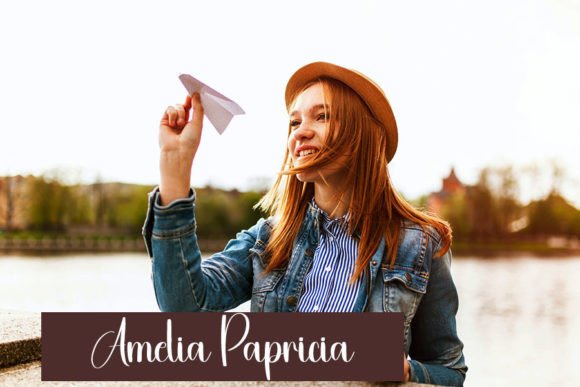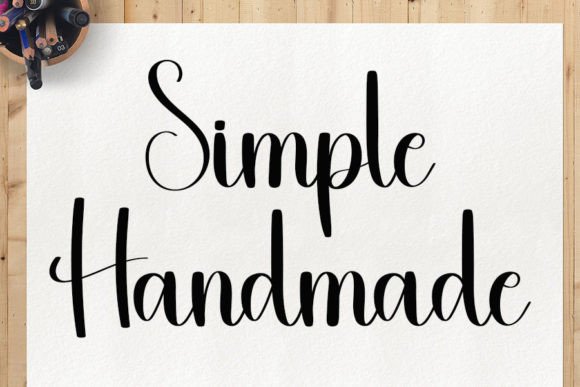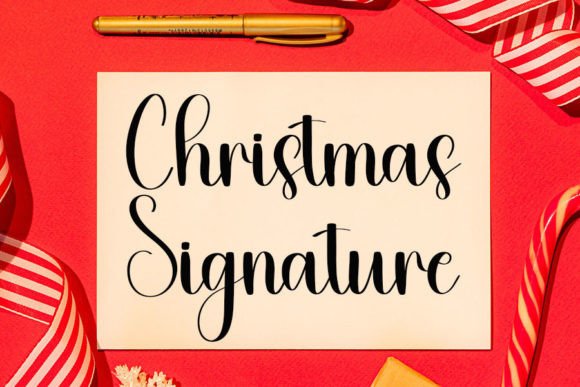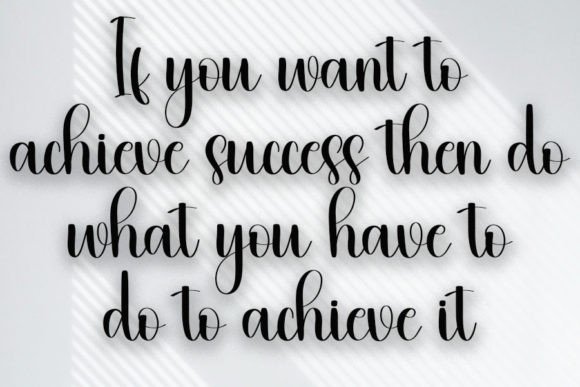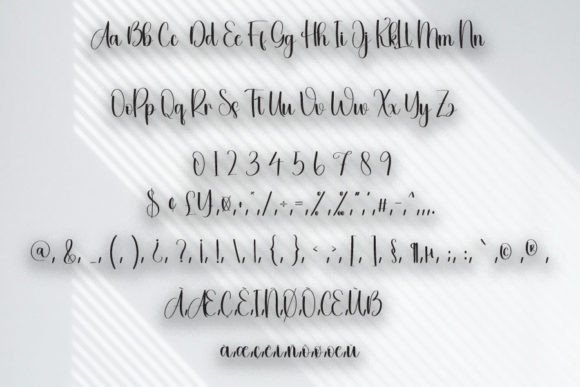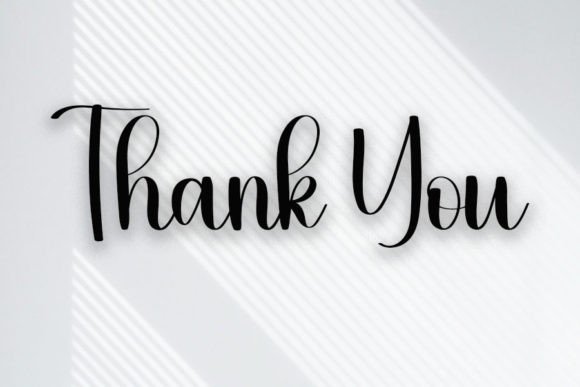
Introduction to Olrihgt Font
Remember that moment when you’re brainstorming ideas for your next creative project, and you’re stuck trying to find the perfect font to bring it all together? You’ve got your design vision, but the right typography is missing to make it pop. For many of us, this is a common struggle – but what if you had a reliable go-to font that could elevate any design, no matter the occasion?
Enter the Olrihgt Font, a simple and friendly handwritten font that’s perfect for crafts, digital design, presentations, or making greeting cards. With its high-quality design and transparent background, this font is a valuable resource for designers looking to add a personal touch to their projects. Whether you’re a seasoned pro or just starting out, Olrihgt Font is a must-have in your design arsenal.
Key Features of Olrihgt Font
- Designed to be versatile, the Olrihgt Font is perfect for use in a range of creative projects, from logos and branding to typography and graphics.
Honest Review: Olrihgt Font
As a designer, I’m always on the lookout for high-quality design resources to elevate my creative projects. The Olrihgt Font caught my eye with its unique and modern aesthetic.
What works well: ✨ The font is incredibly versatile and works well for a variety of design projects, from logos to signage. The font’s clean lines and simple shapes make it easy to read and understand, even at small sizes.
- ✨ The font has a transparent background, making it easy to place on any background without worrying about clutter.
However, there are a few limitations to consider: ⚠️ The font is only available in a few weights, which may limit its use in certain design projects. Additionally, the font may not be as customizable as some other options.
Overall, I’m impressed with the Olrihgt Font and would recommend it to designers looking for a high-quality, modern font for their creative projects. While it may have a few limitations, its versatility and ease of use make it a valuable addition to any design resource library.
Tips for Getting the Most Out of Olrihgt Font
Use the Olrihgt Font with a transparent background to create a unique and eye-catching design. Experiment with different font sizes and colors to achieve the desired effect. Combine the Olrihgt Font with other design elements, such as images and graphics, to create a visually appealing creative project.
The Olrihgt Font is suitable for a wide range of creative projects, including logos, business cards, and marketing materials. Use it to create a professional-looking design that stands out from the crowd.
Is Olrihgt Font suitable for high-quality design projects?
Yes, Olrihgt Font is a high-quality design resource that’s perfect for creative projects. The font features a unique and stylish design that’s sure to add a touch of sophistication to any project. With its high-quality design and transparent background, Olrihgt Font is an excellent choice for designers looking to create stunning designs.